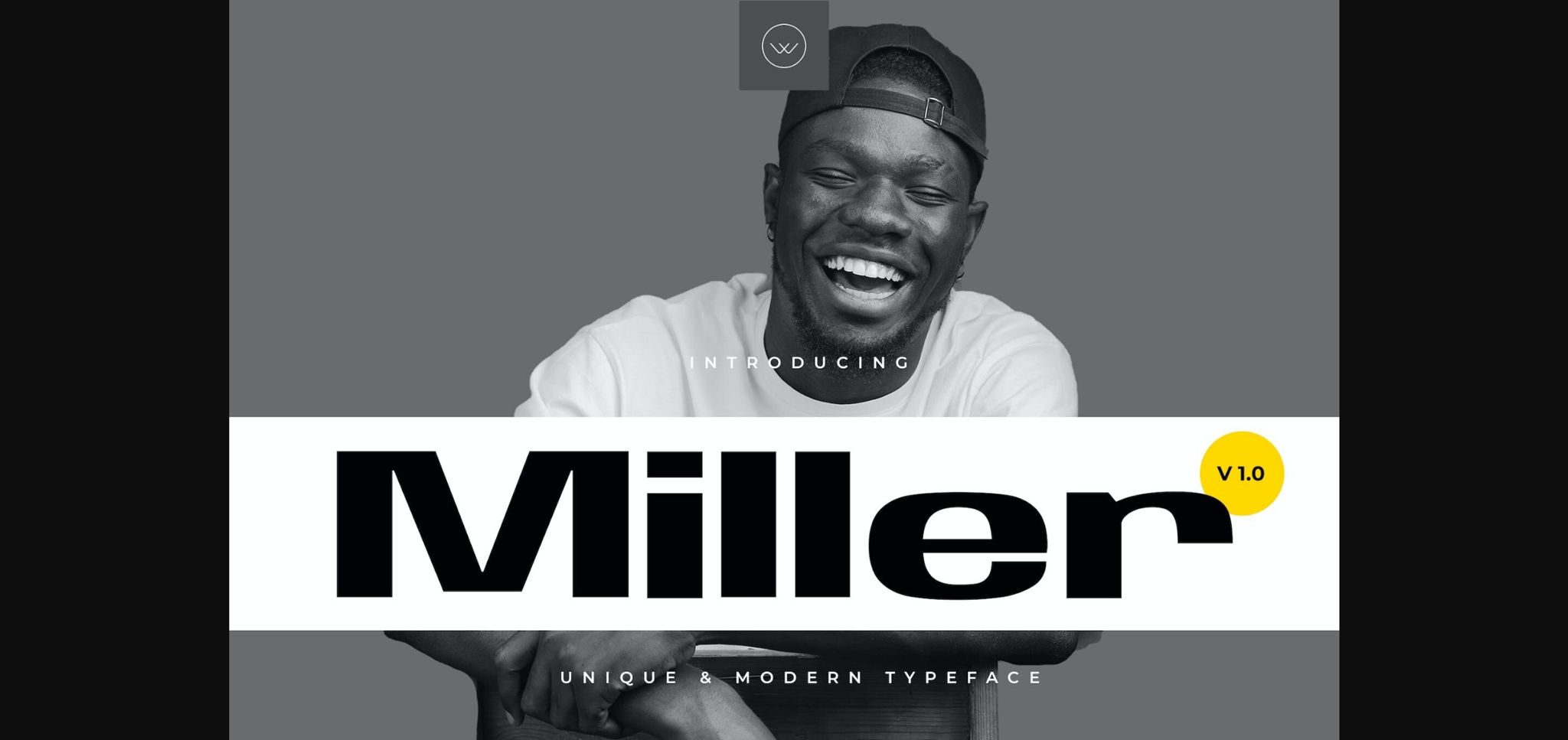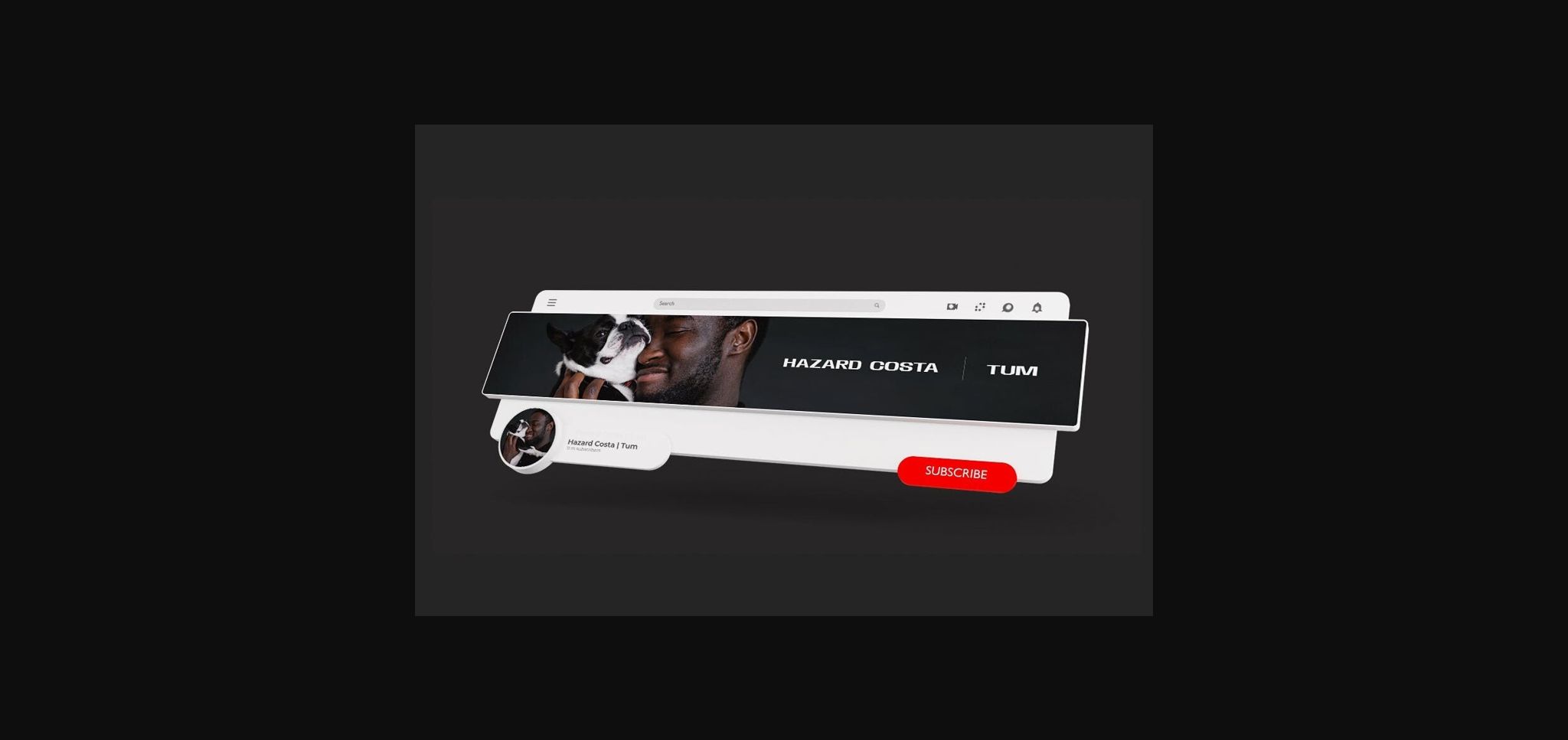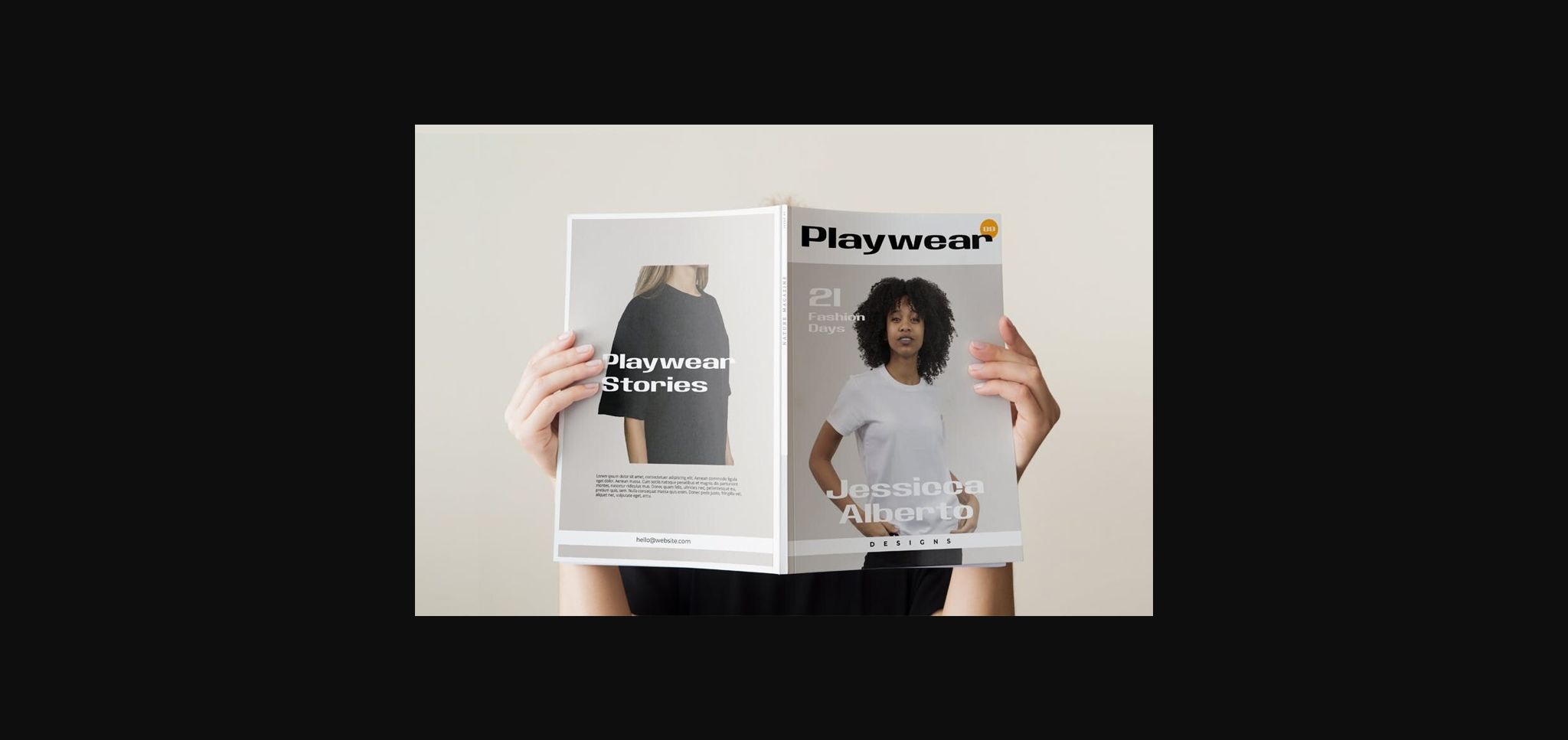
About Miller Font
Miller is a cool and modern sans-serif font. Its thick stems add a touch of allure and beauty, making your designs truly captivating. Whether you’re crafting logos, branding materials, or stylish graphics, Miller is the perfect choice to bring your vision to life. Unleash your creativity and let Miller make a bold statement in your next project.